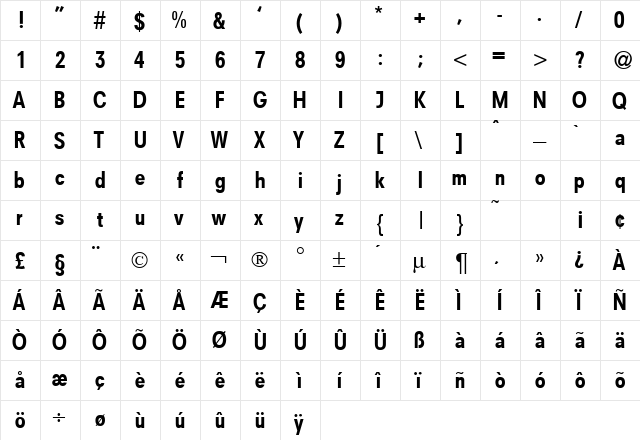
DigestDB Normal
Design Context for DigestDB Typeface
DigestDB takes a measured approach to typography — its balanced proportions and neutral character make it a reliable workhorse for both digital and print work.